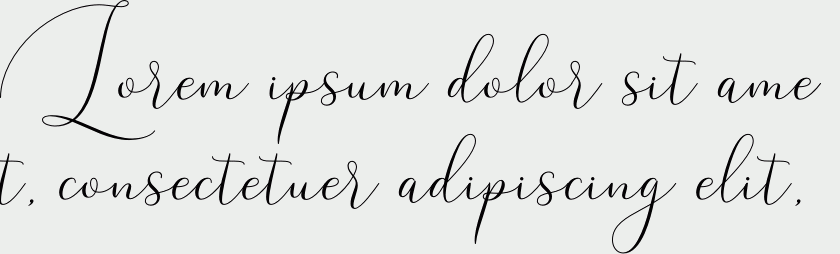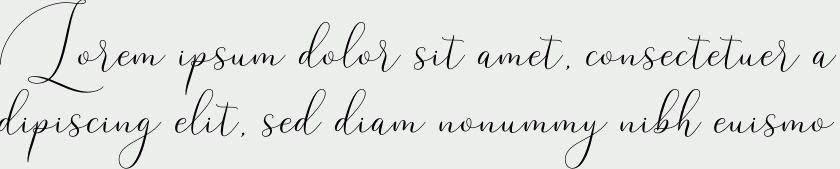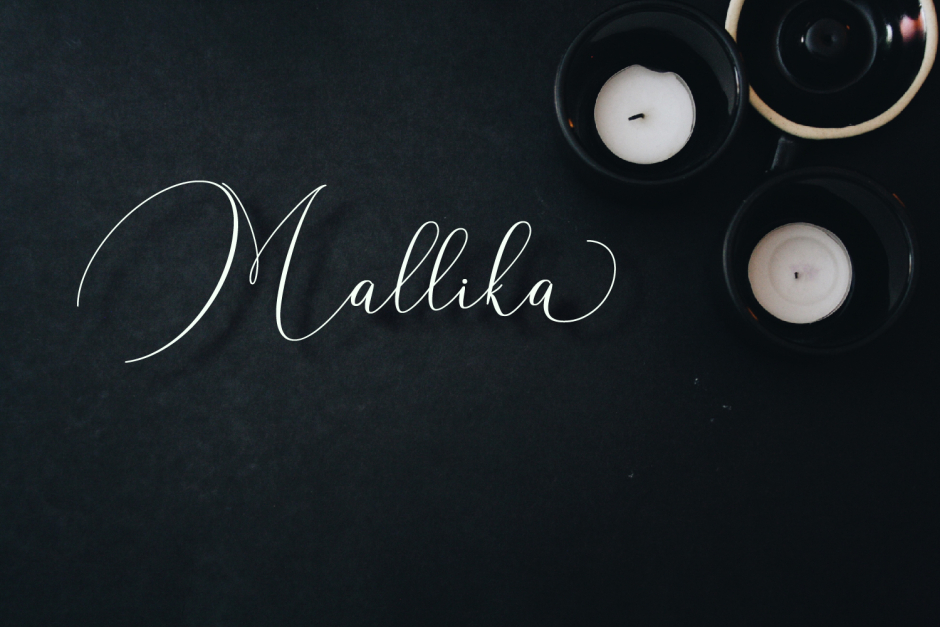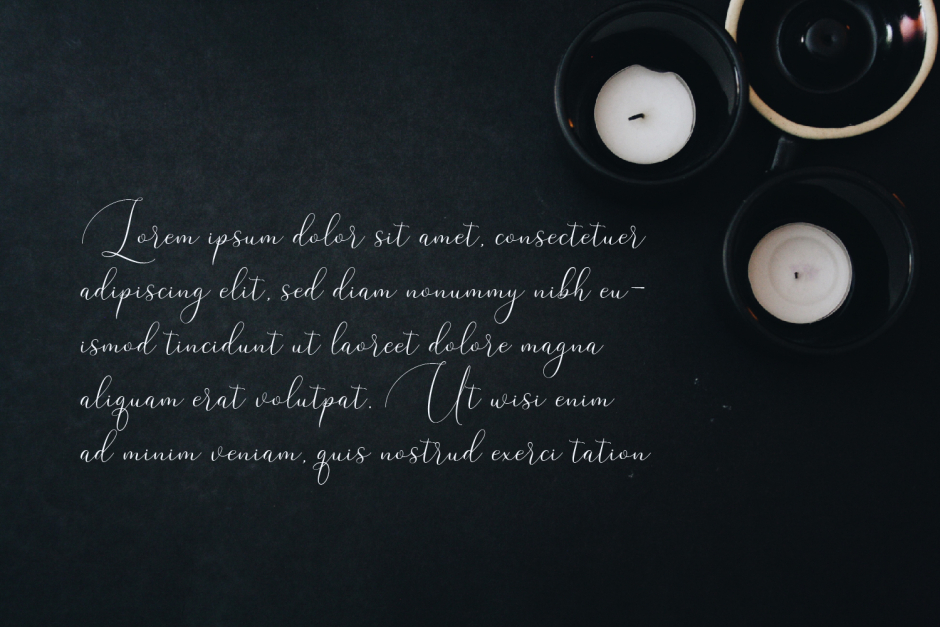
Mallika
Mallika Script is a romantic calligraphy font that features a varying baseline, smooth line, classic and elegant touch. Can be used for various purposes.such as headings, signature, logos, wedding invitation, t-shirt, letterhead, signage, lable, news, posters, badges etc.
Mallika Script features 360+ glyphs and 160+ alternate characters. including initial and terminal letters, alternates, ligatures and multiple language support.